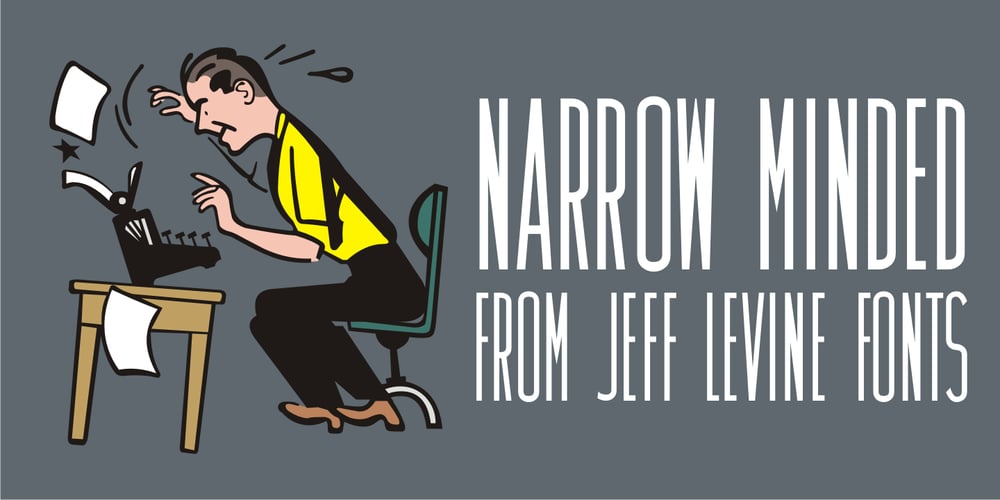
Narrow Minded JNL Font Family was designed by Jeff Levine and published by Jeff Levine. Narrow Minded JNL contains 1 styles and family package options. In the days of hand lettering, a common philosophy was “the problem creates the solution”. Often times the layout artist would have to adapt the lettering style to fit the amount of copy on a line. A perfect example is during the early 1900s, when popular sheet music of the time almost seemed to be competing for how many words could be used within a song’s a title. One such piece of sheet music offered up the tall, condensed and variable-width lettering found within Narrow Minded JNL.